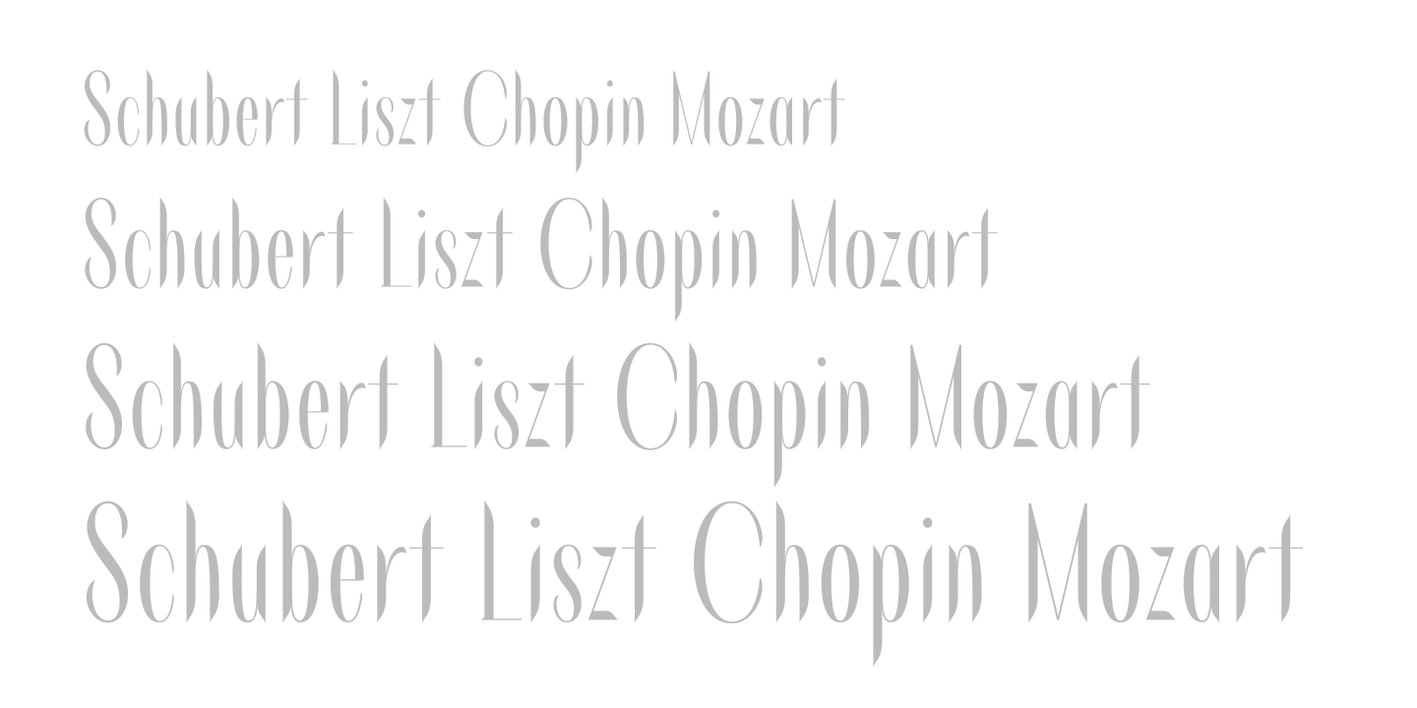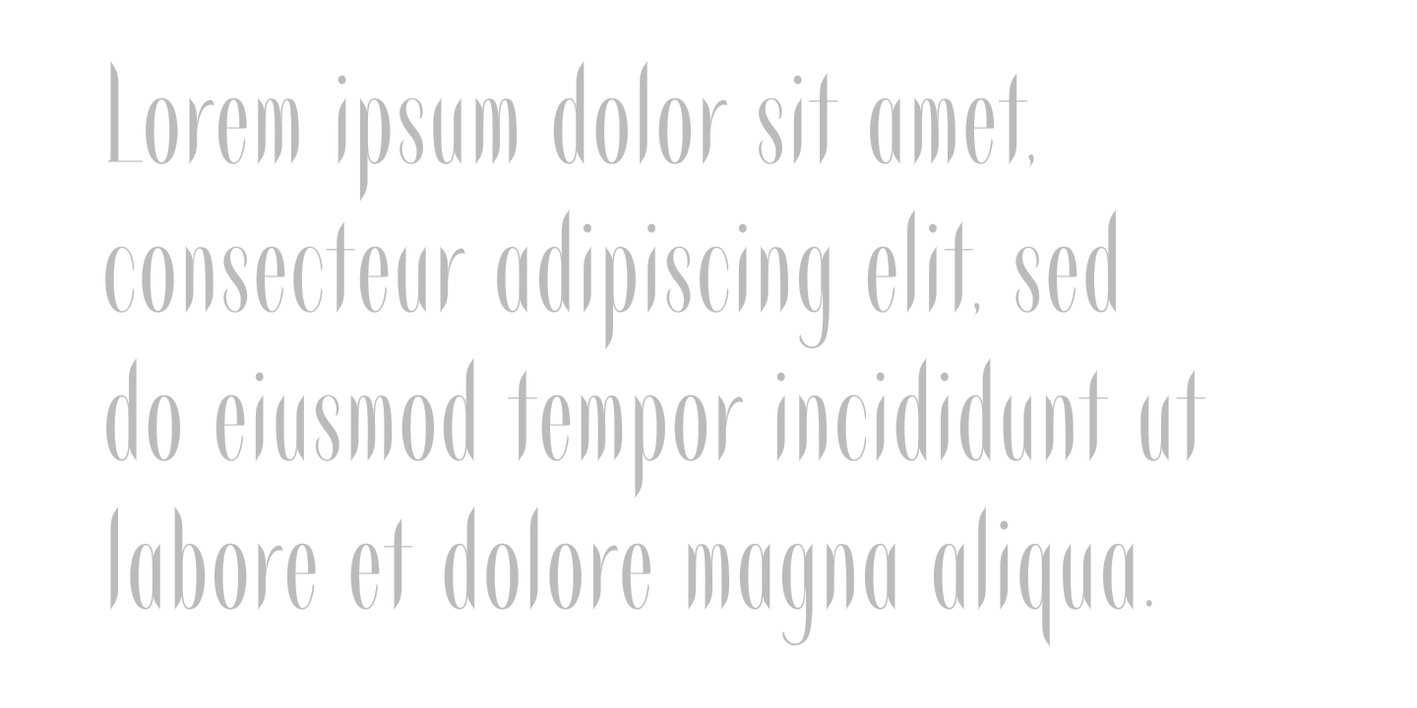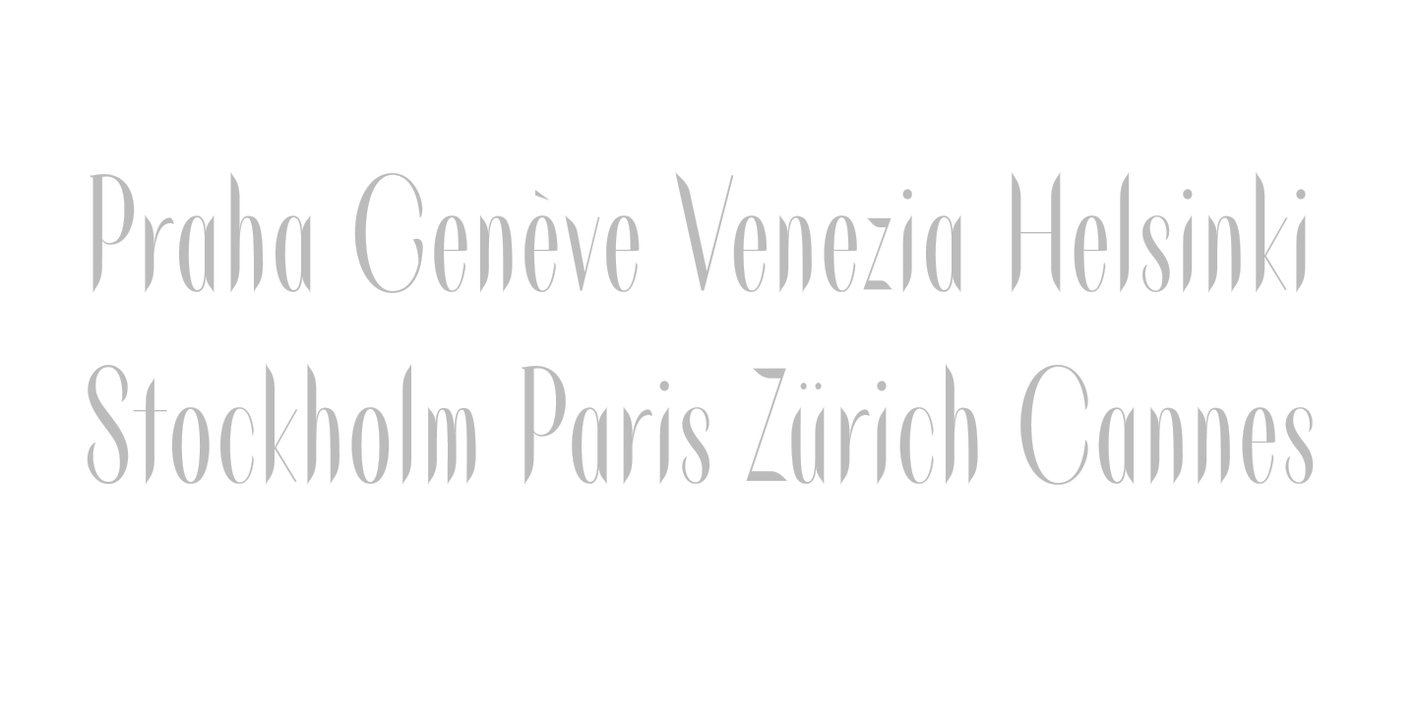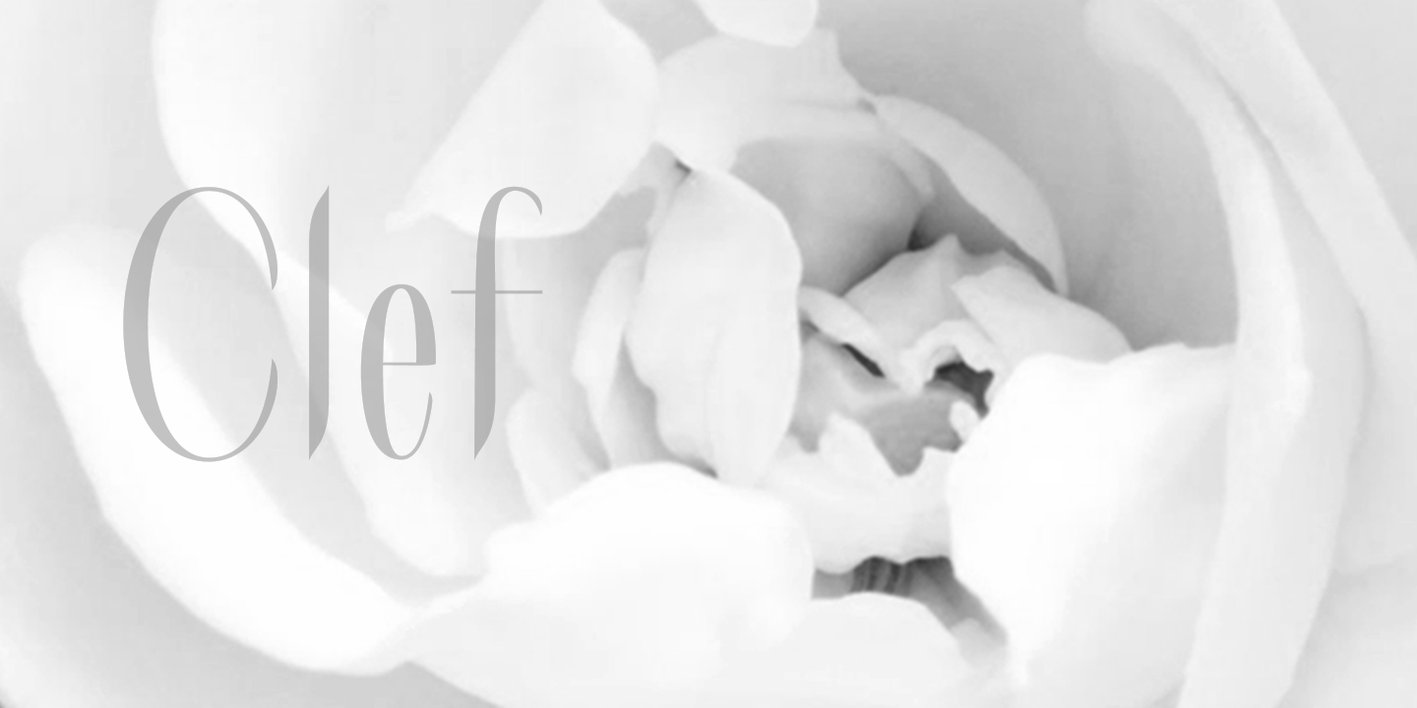
Clef Font
Clef is a display typeface with clean contours and gently cut-off edges. With its simplicity, this font would suit well with a wide variety of projects, including book covers, art exhibitions and design websites.